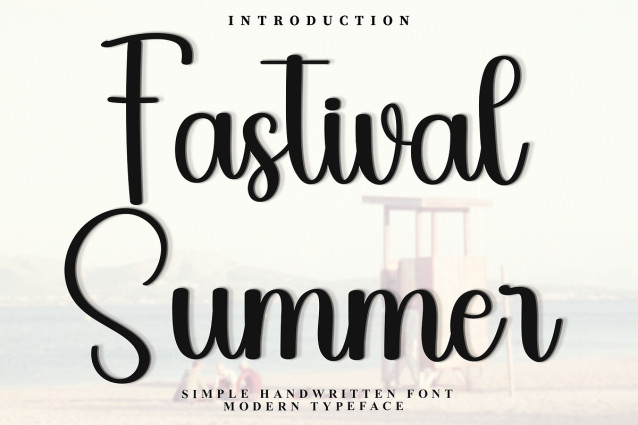
Fastival Summer Font
Fastival Summer Font is a beautiful and eye-catching font designed with a soft, unique touch. Its distinctive strokes give it a special character, making it meaningful and versatile for future use. With various characters, it’s perfect for design projects, crafts, and other creative works.